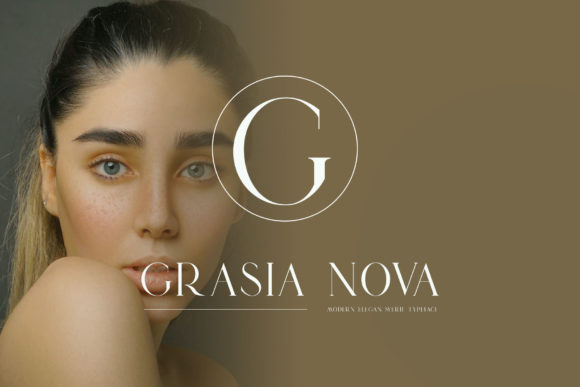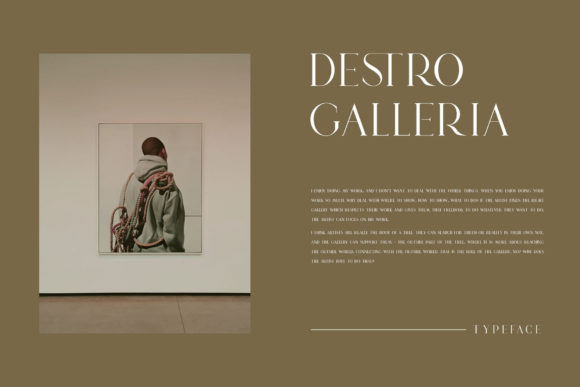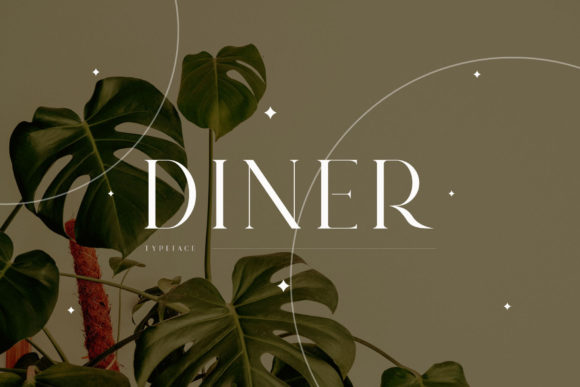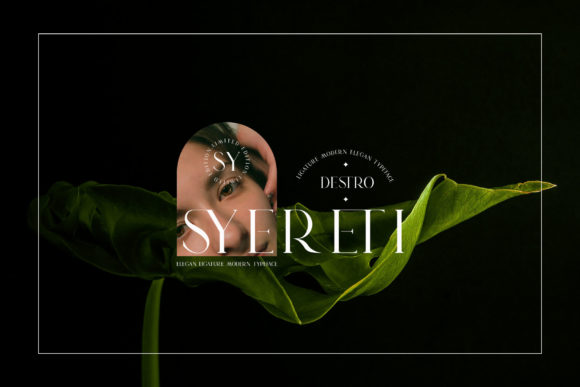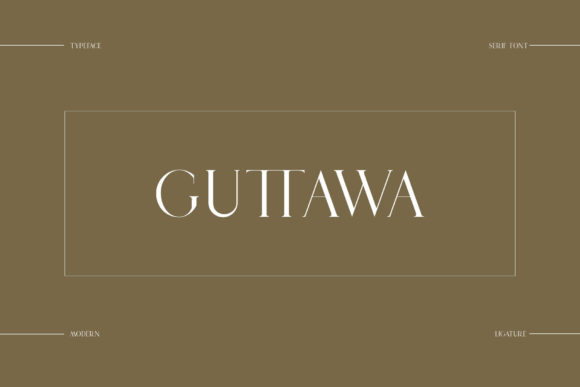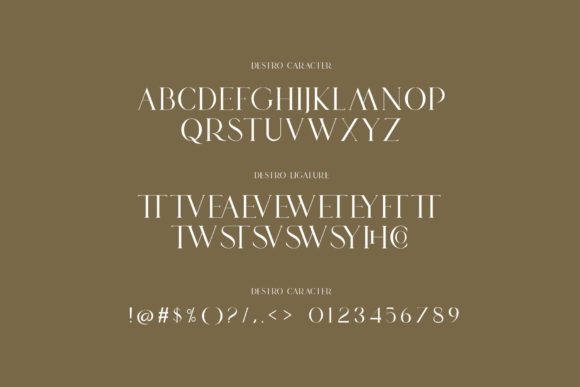
Introducing Destro Font: Elevate Your Designs with Elegance and Charm
Are you a designer or crafter looking for a font that exudes sophistication and style? Look no further than Destro Font, an elegant and charming serif font that is sure to take your designs to the next level. With its beautiful design and touch of creativity, Destro Font is the perfect choice for anyone looking to add a touch of class and luxury to their work.
The Characteristics of Destro Font
Destro Font is a serif font, which means it features small lines or flourishes at the ends of the letters. This gives it a classic and timeless look that is perfect for designs that require a touch of sophistication. The font is beautifully designed with a touch of creativity, which sets it apart from other serif fonts. The letters are elegant and refined, with a subtle flair at the terminals that adds to their charm.
Why Choose Destro Font?
So why choose Destro Font over other fonts? Here are just a few reasons why Destro Font stands out:
• Elegant and Charming: Destro Font is an elegant and charming font that is sure to add a touch of sophistication to your designs.
• Classy and Expensive Look: The font has a classy and expensive look that is perfect for designs that require a touch of luxury.
• Stand Out: Destro Font is designed to make your designs stand out and come alive. Its unique and creative design ensures that your work will not go unnoticed.
• Versatile: Destro Font is a versatile font that can be used for a wide range of designs, from logos and branding to packaging and advertising.
How to Use Destro Font
• Pair it with Other Fonts: Destro Font works well when paired with other fonts. Try pairing it with a sans-serif font for a modern and elegant look.
• Use it for Headings: Destro Font is perfect for headings and titles. Its elegant and charming design makes it ideal for grabbing attention.
• Experiment with Colors: Destro Font looks great in a variety of colors. Experiment with different colors to find the one that works best for your design.
Who is Destro Font for?
Destro Font is perfect for designers and crafters who are looking for a font that exudes elegance and sophistication. It’s ideal for:
• Graphic Designers: Destro Font is perfect for graphic designers who are looking for a font that can add a touch of luxury to their designs.
• Crafters: Destro Font is also great for crafters who are looking for a font that can add a touch of elegance to their handmade products.
• Branding and Advertising: Destro Font is perfect for branding and advertising agencies who are looking for a font that can help their clients stand out.
In conclusion, Destro Font is an elegant and charming serif font that is sure to elevate your designs to the next level. With its beautiful design and touch of creativity, it’s the perfect choice for designers and crafters who are looking for a font that exudes sophistication and style. Whether you’re looking for a font for a logo, branding, or advertising, Destro Font is a great choice.